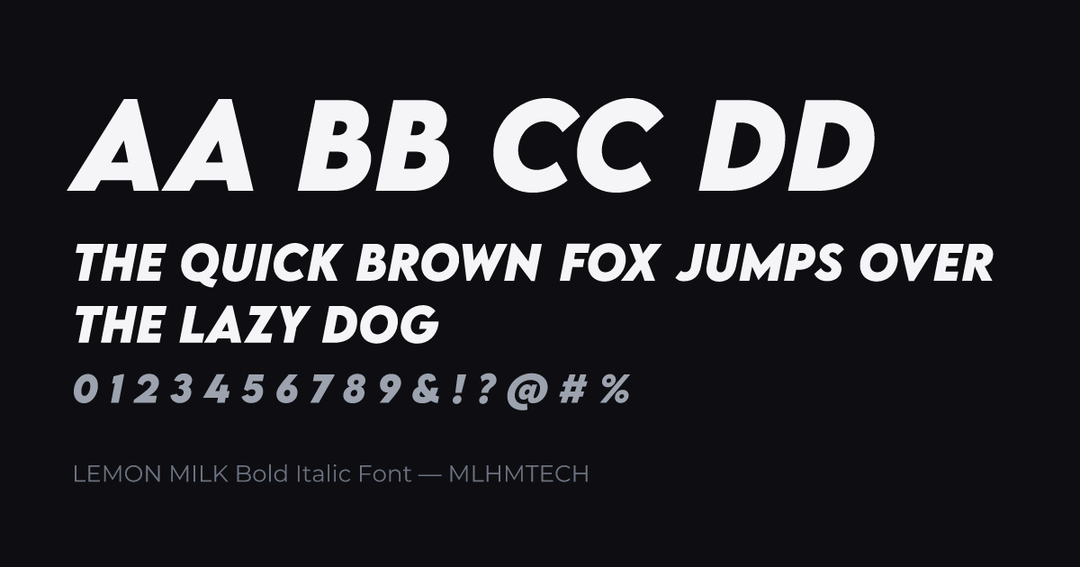
LEMON MILK Bold Italic Font
LEMON MILK Bold Italic is a distinctive sans-serif font that adds a bold, dynamic feel to any design. Ideal for headlines, logos, and branding.
LEMON MILK Bold Italic is a high-contrast sans-serif font with a unique geometric structure. Its bold weight and italic slant give it a sense of motion and energy, making it perfect for grabbing attention in posters, social media graphics, and video titles.
The font's clean lines and modern aesthetic ensure readability even at large sizes, while its distinctive character set adds personality to any project. Whether you're designing a logo, a movie poster, or a YouTube thumbnail, LEMON MILK Bold Italic will make your text stand out.